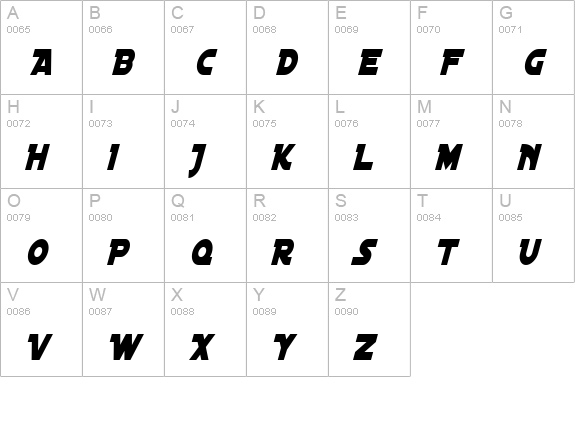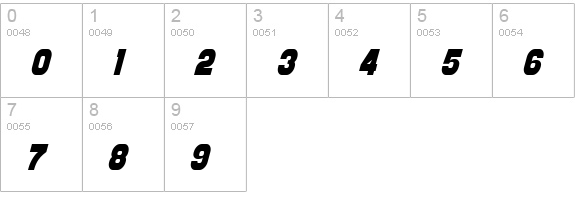
Distant Galaxy Condensed Italic is a distinctive, condensed-width, italic variant in the Distant typeface family \xE2\x80\x94 well suited to design and typography projects.
Distant Galaxy Condensed Italic is a stunning and futuristic font that effortlessly captures the essence of outer space exploration. Its sleek and elegant design, combined with a touch of italic style, creates a sense of movement and dynamism. This font is perfect for projects that require a modern and cosmic touch, whether it be branding, posters, or digital designs. Best of all, Distant Galaxy Condensed Italic is completely free to download at FontsMarket.com. Don't miss out on this unique and versatile font that will take your designs to new galaxies of creativity. Download it now and elevate your projects with a touch of cosmic sophistication.